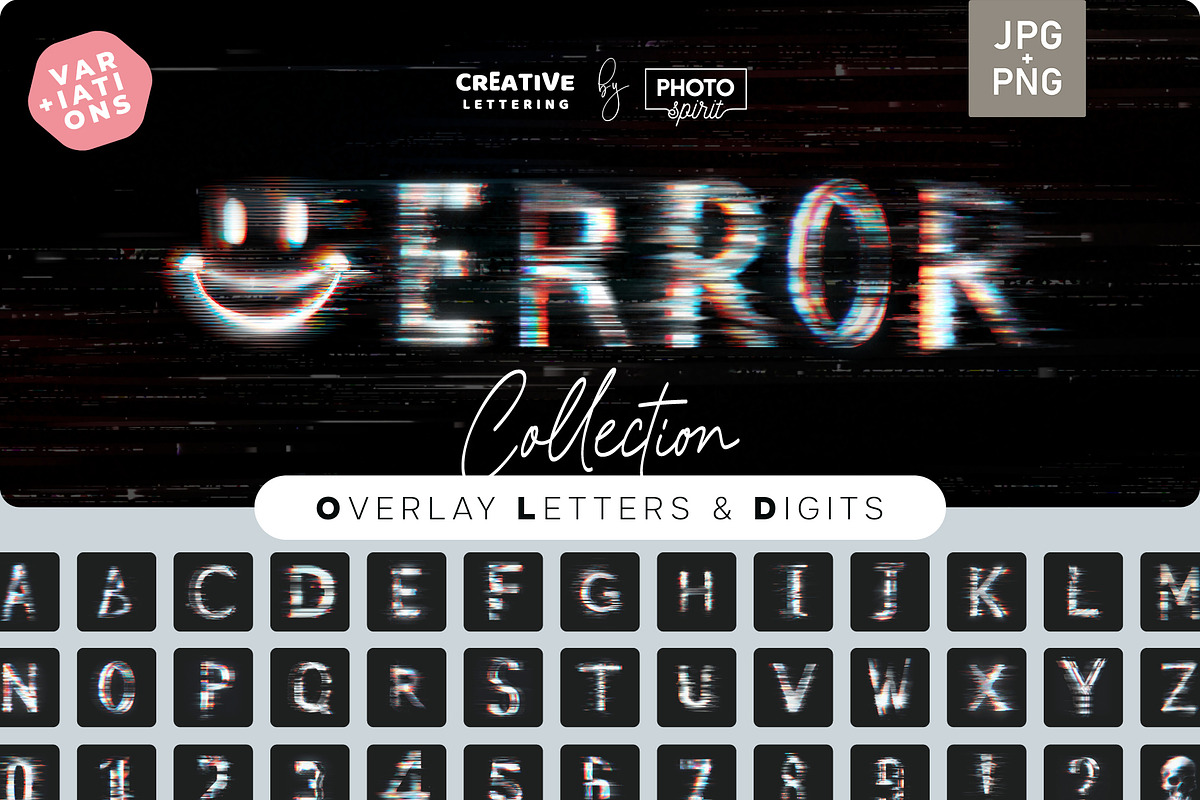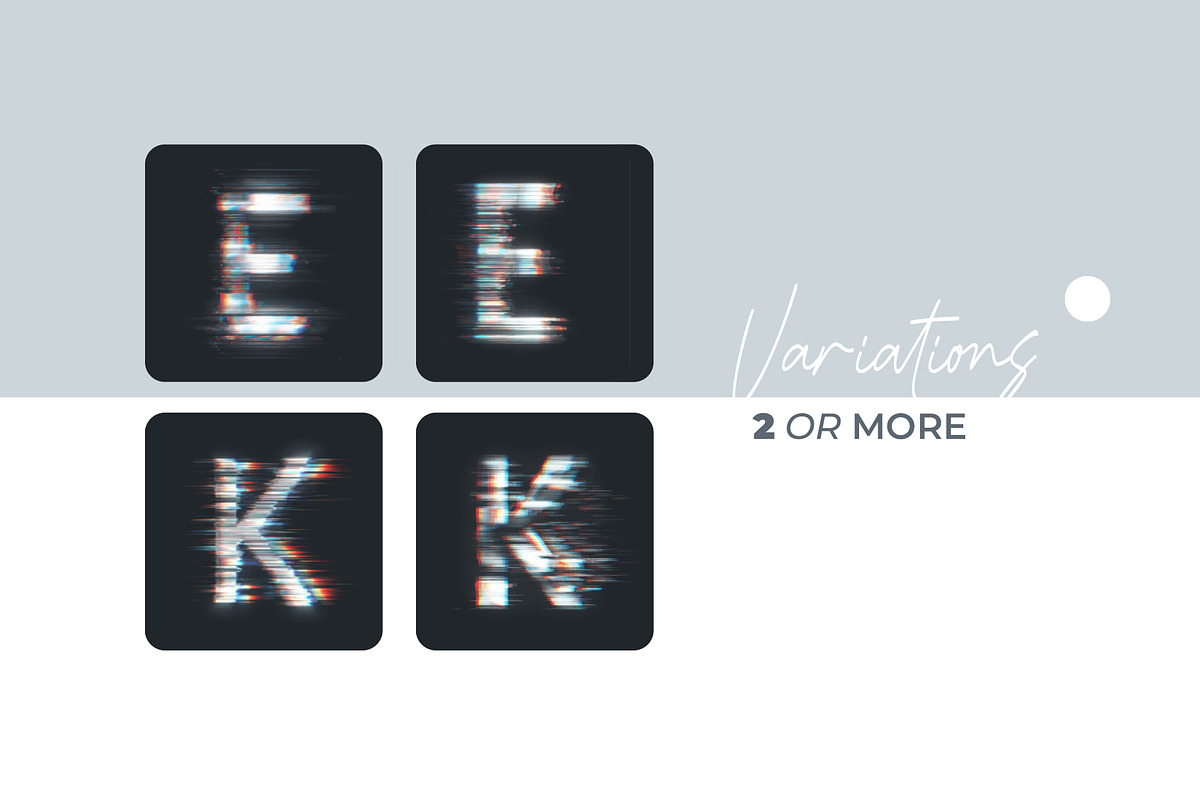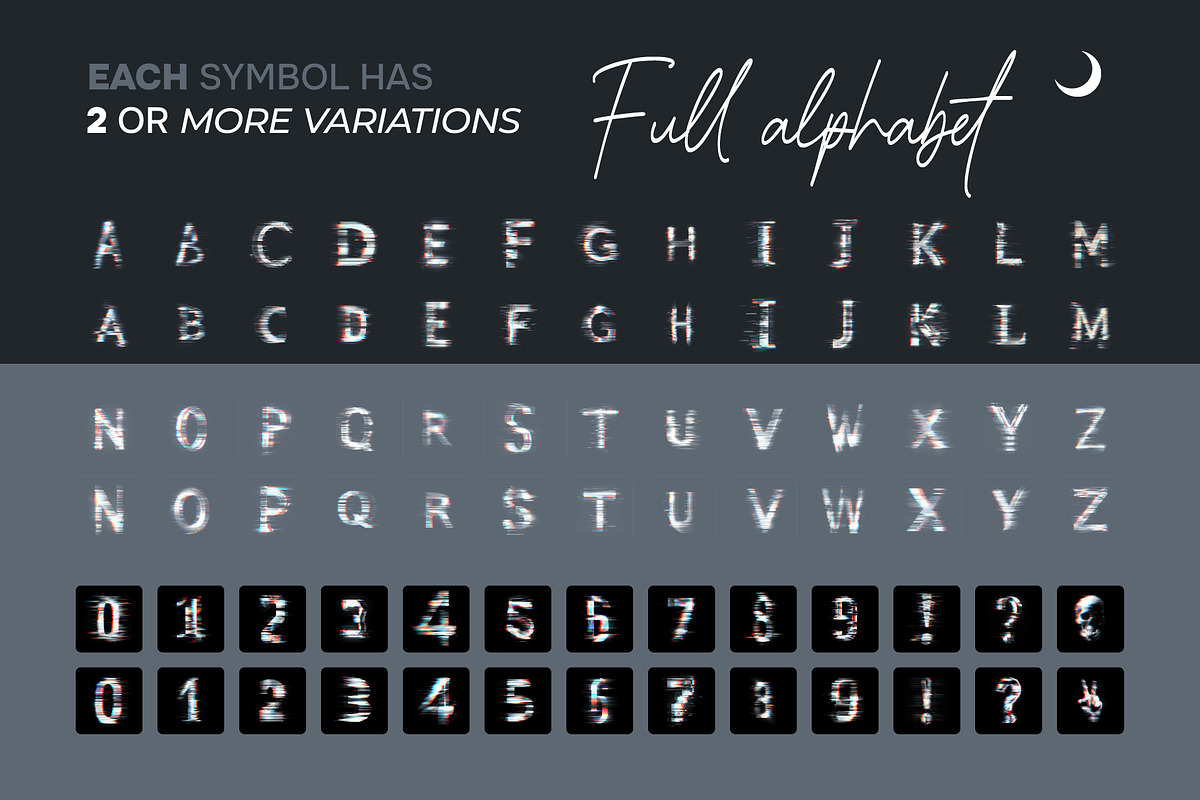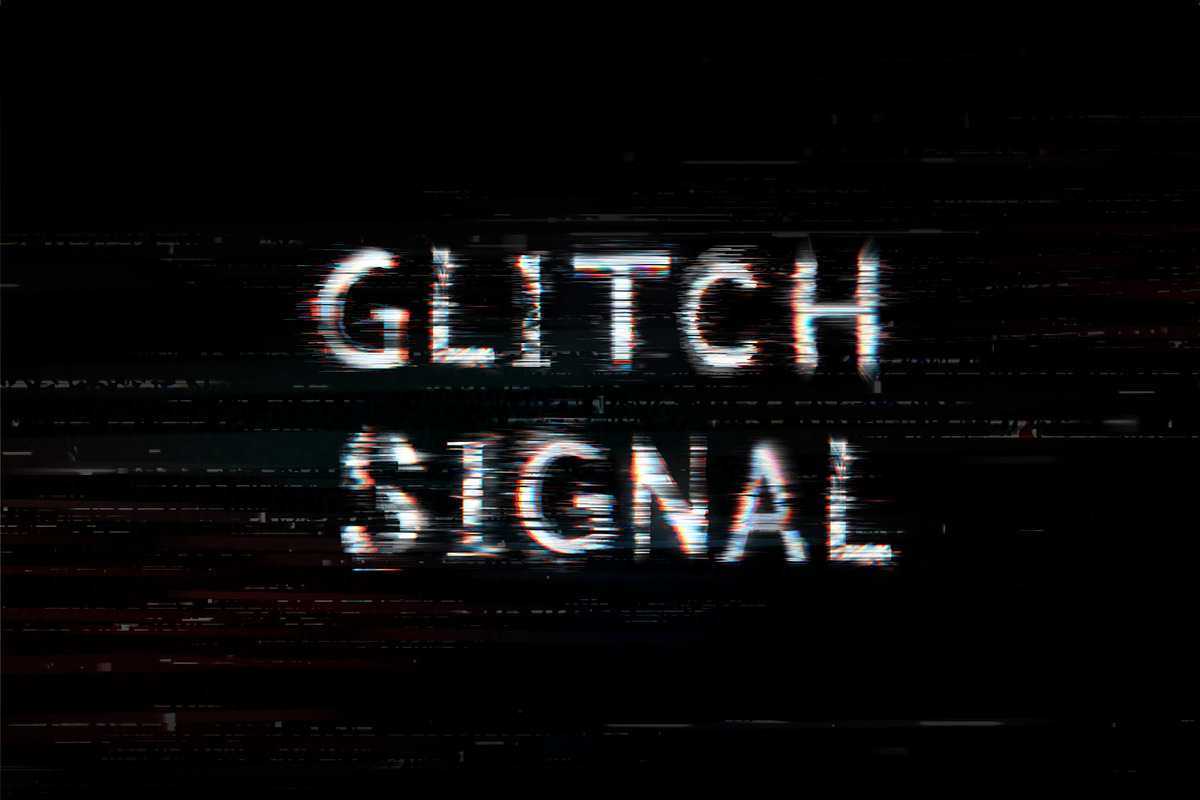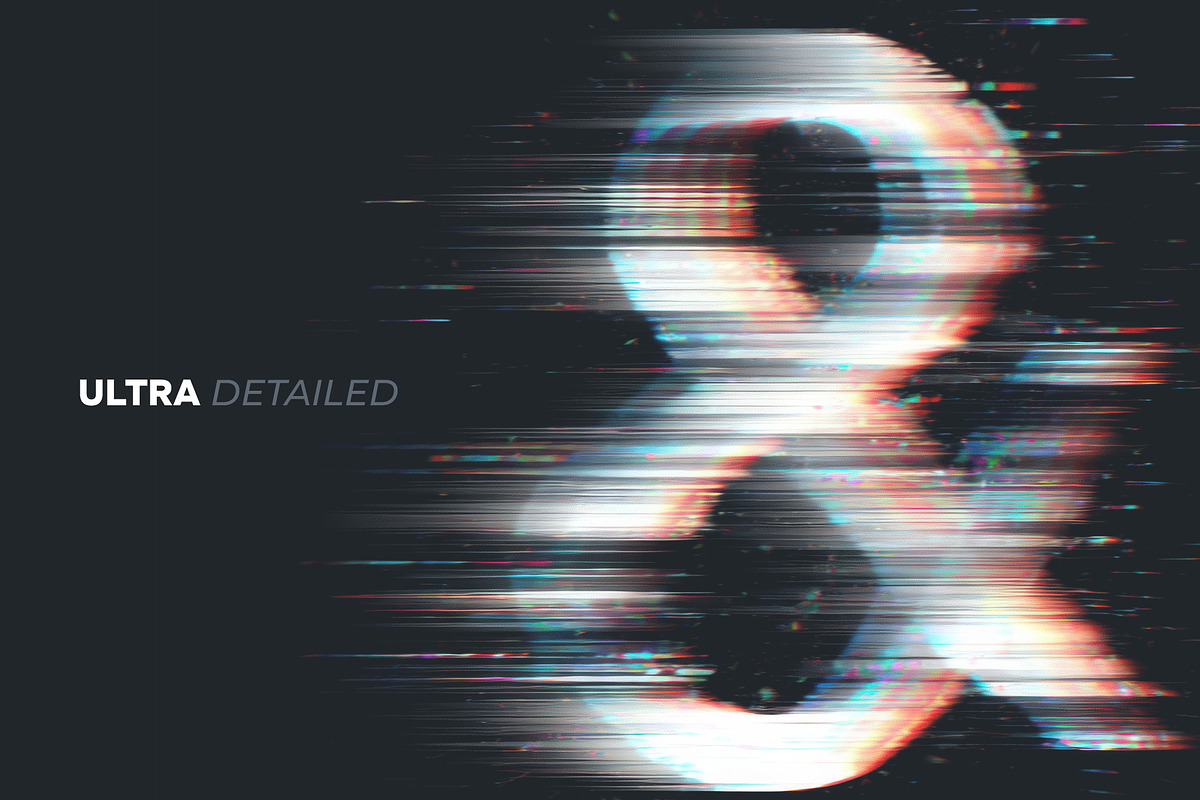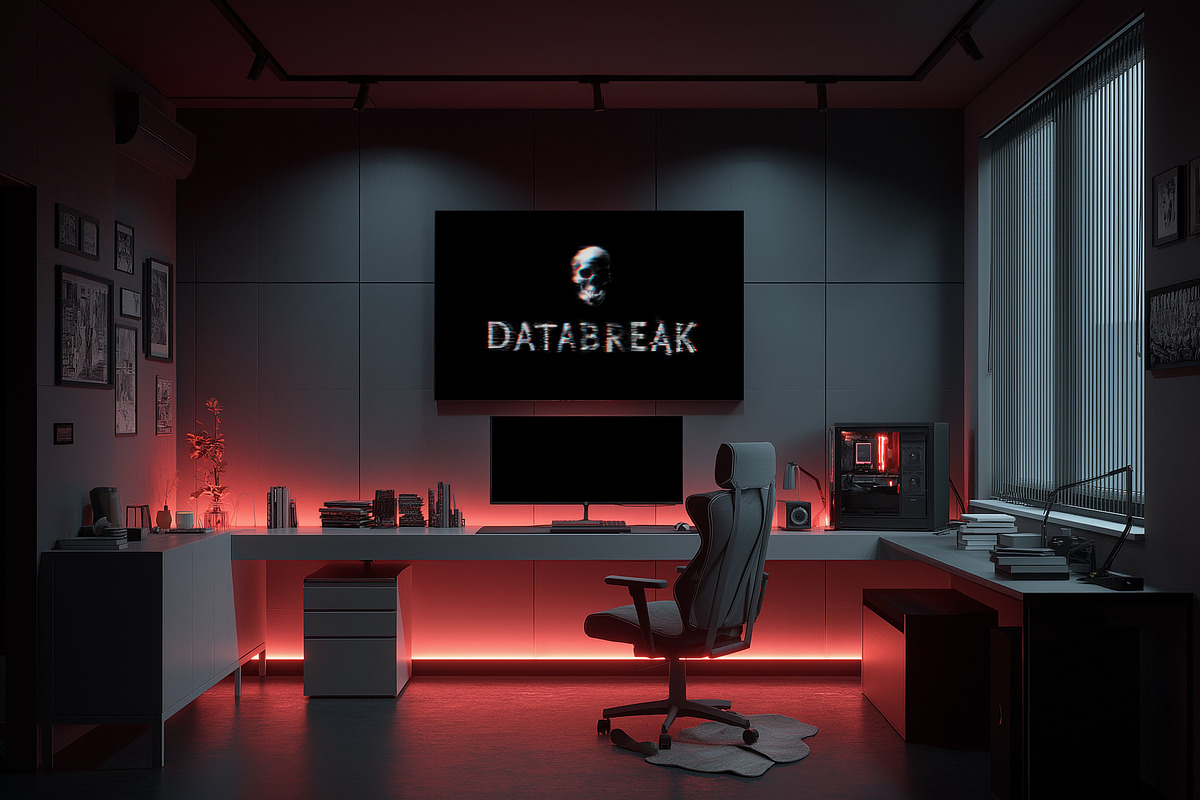
Error Data Glitch Letters Overlays
Transform your projects with the Error Data Glitch Type Letter Overlays , a cutting-edge collection of alphabet letters infused with the edgy, distorted aesthetics of digital glitches. Each letter is meticulously crafted to capture the fragmented, futuristic essence of corrupted data, making it perfect for adding a tech-savvy and rebellious touch to your designs.
Whether you're creating branding materials, social media content, posters, or personal artwork, this set will infuse your creations with a sense of innovation and cyberpunk energy. The overlays are versatile, easy to use, and compatible with various design platforms, ensuring seamless integration into any project with professional results.
✨ Key Features:
Complete Alphabet & Symbols: Includes uppercase letters, numbers, and essential symbols for all your design needs.
Multiple Glitch Variations: 2–5 unique glitch styles per letter, offering flexibility and creative options.
Realistic Glitch Effects: Captures the fragmented, distorted essence of digital errors for futuristic and eye-catching designs.